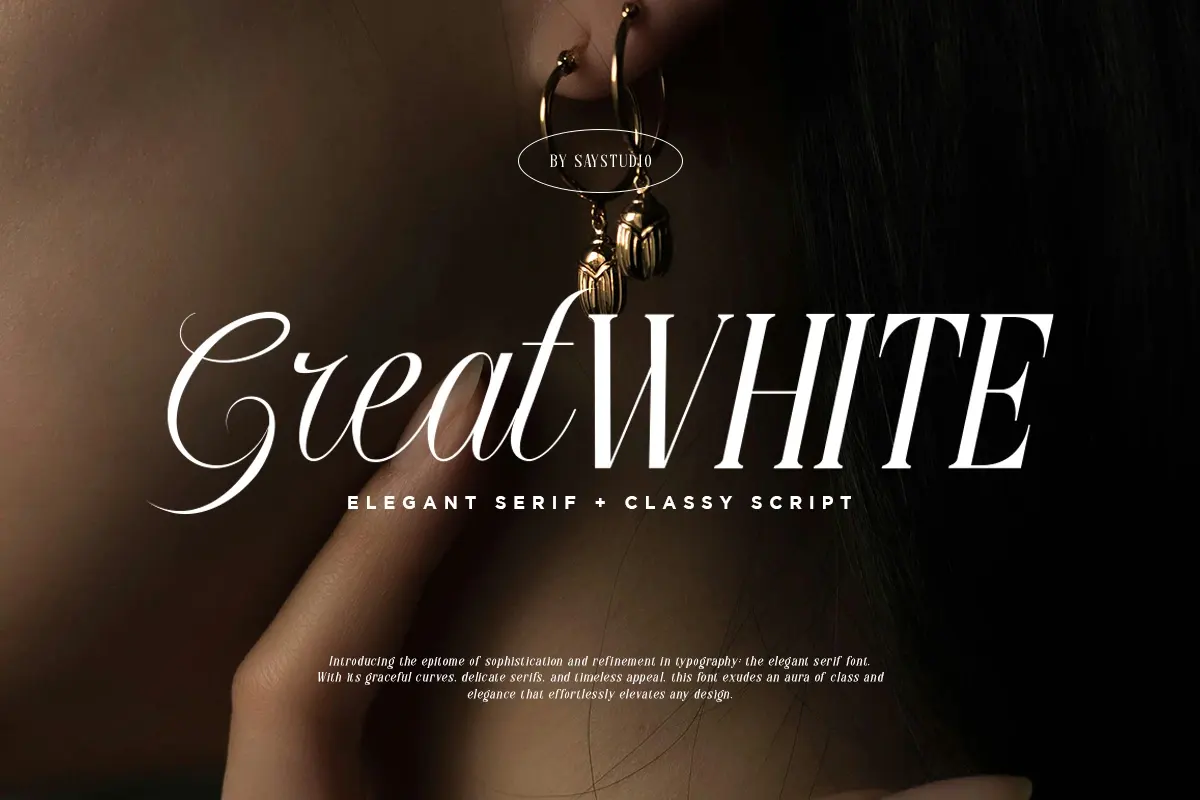
Great White - Font Duo Free Download
Great White - Font Duo Free Download is a versatile and stylish font pair that combines a modern serif with a handwritten script, offering a beautiful contrast between bold, structured type and soft, fluid elegance. This duo is perfect for branding, logos, invitations, social media graphics, and any design project that needs both personality and sophistication.
The serif font offers a clean, timeless look with a bit of edge, while the script font adds a personalized, organic feel. Together, they create a harmonious blend of structure and creativity, making it easy to design projects with both class and charm.